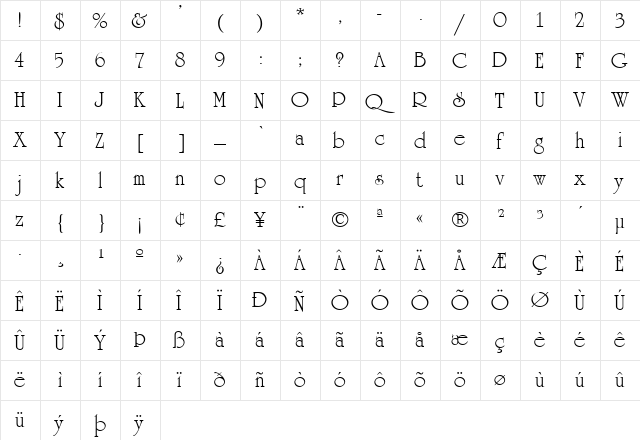
Unicorn Regular
Design Context for Unicorn Typeface
Unicorn is a composed and adaptable typeface that performs quietly and consistently across a wide range of design contexts.